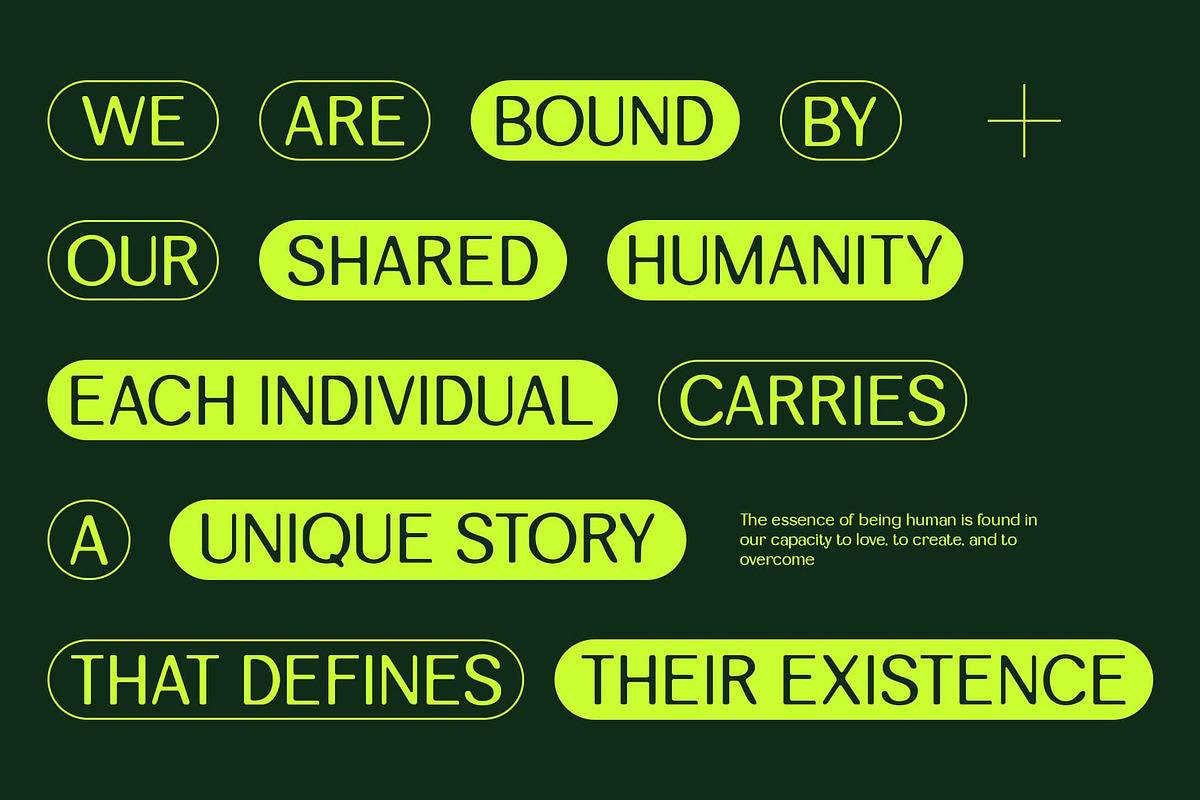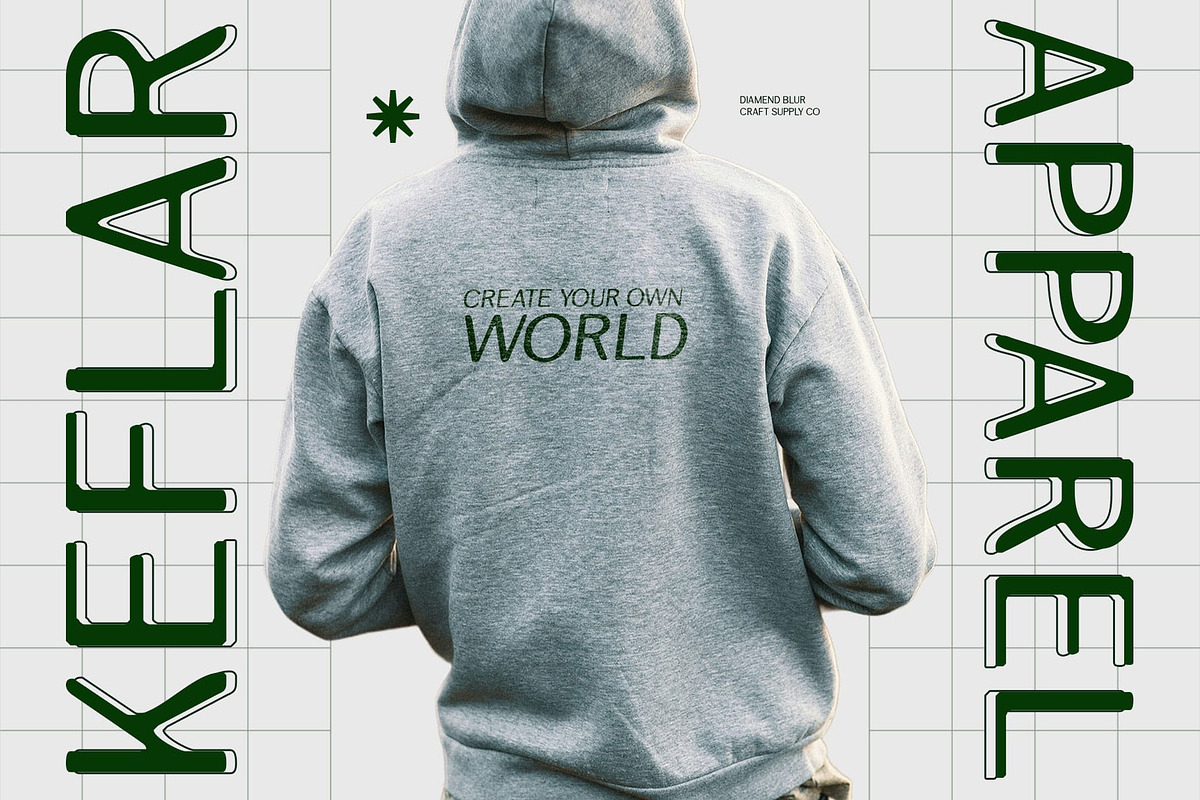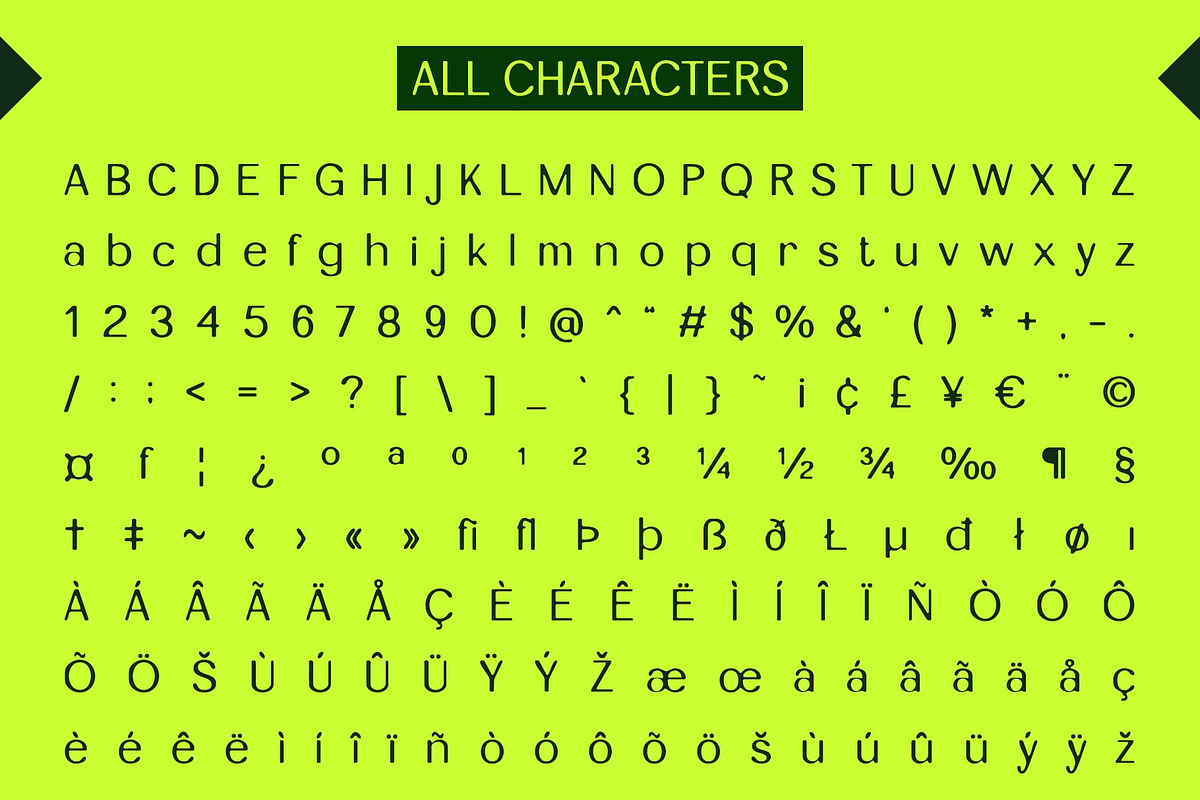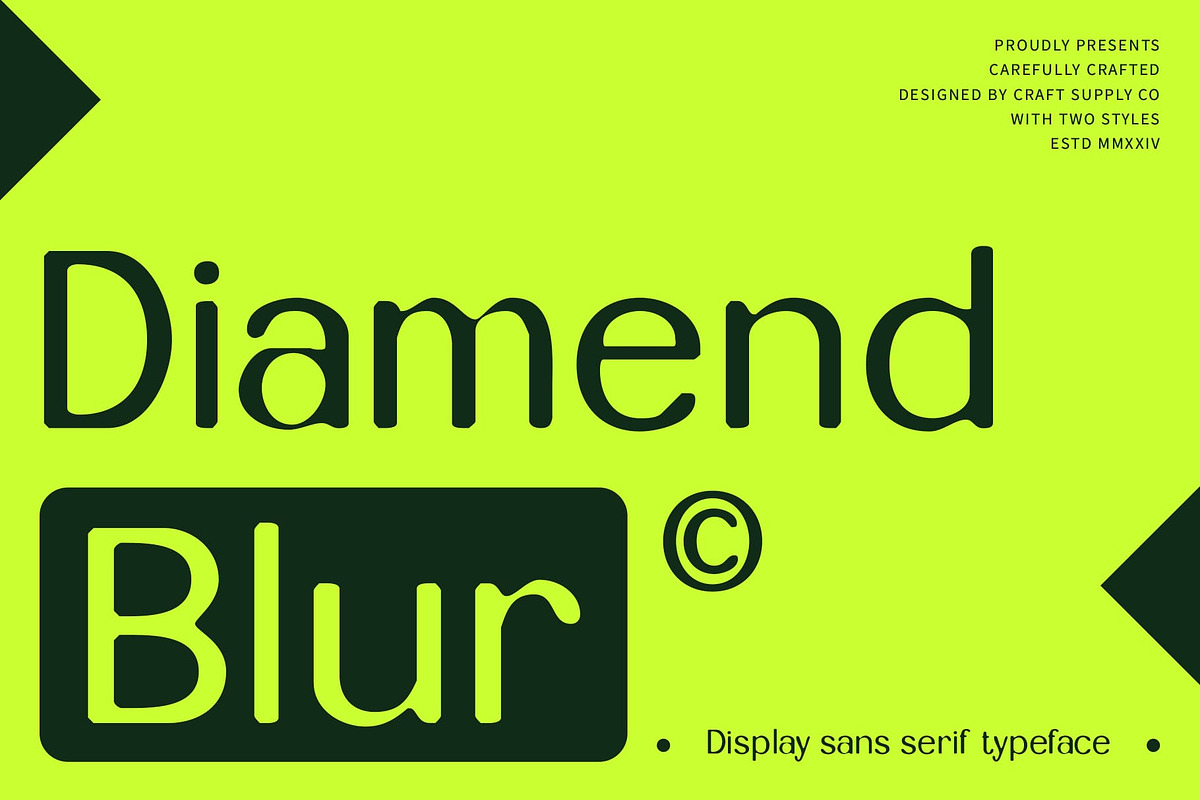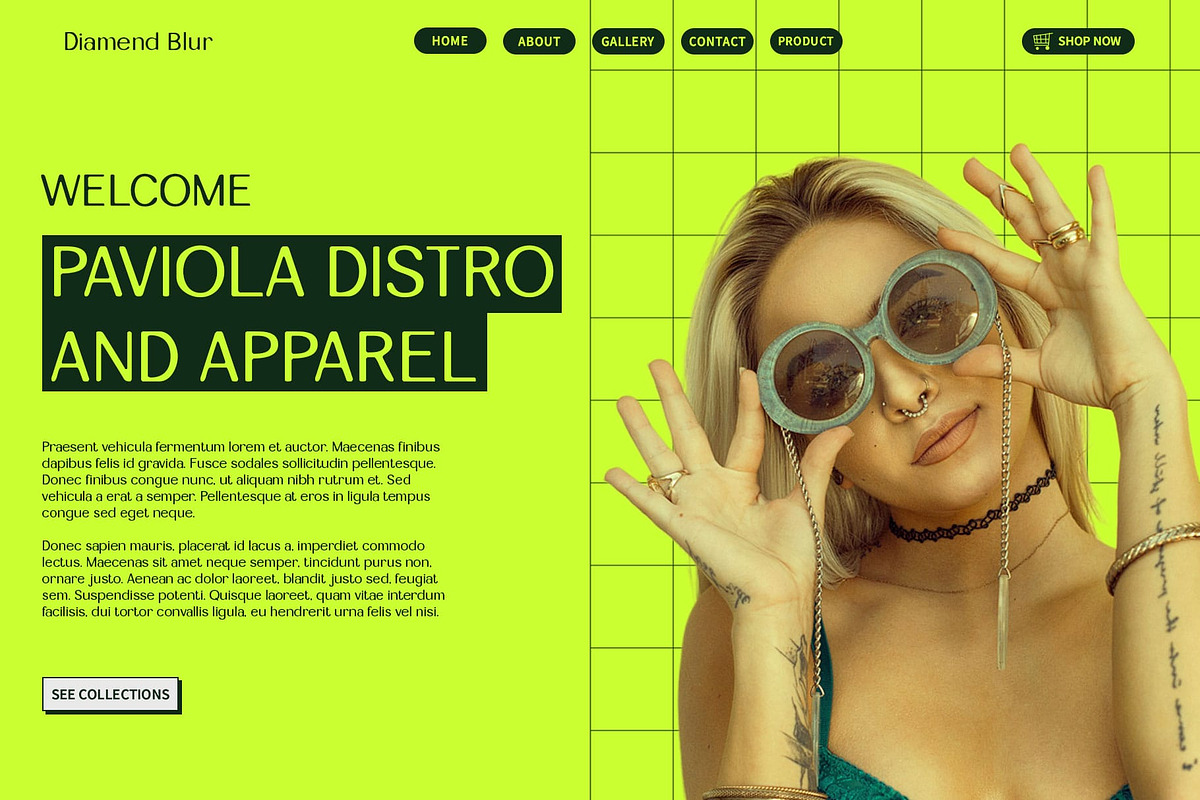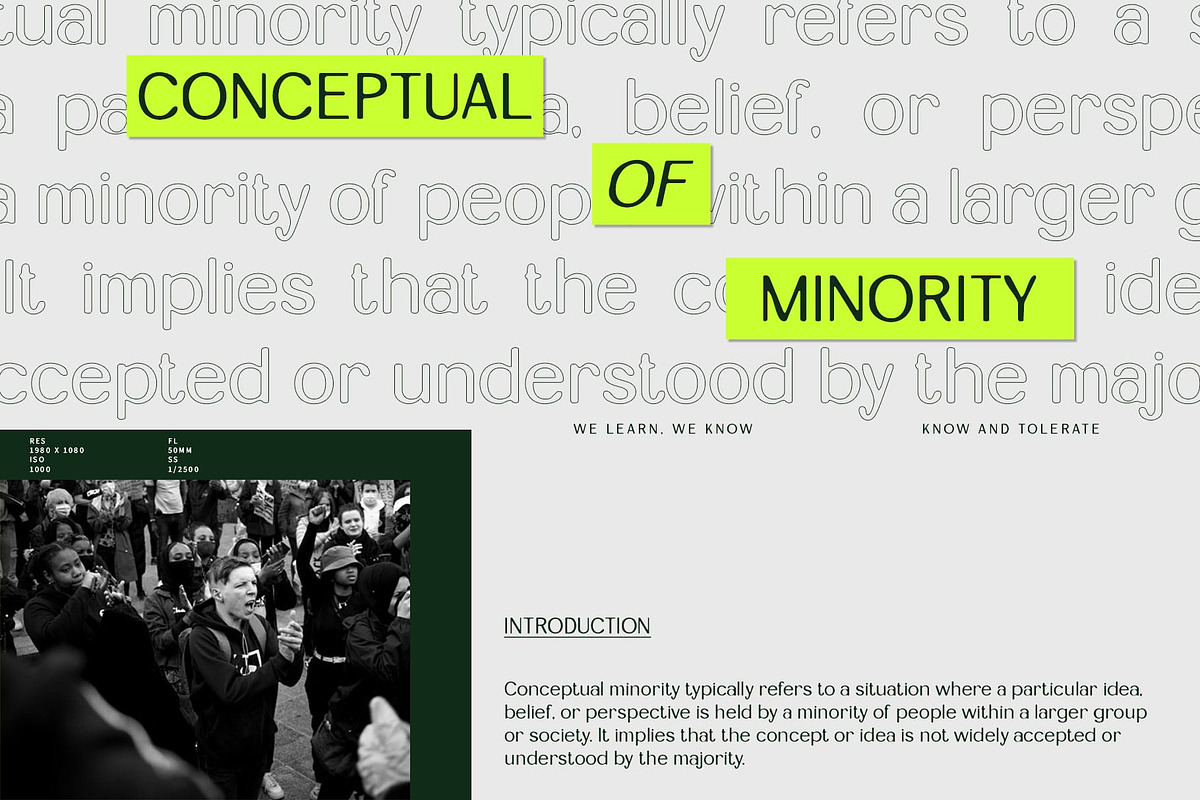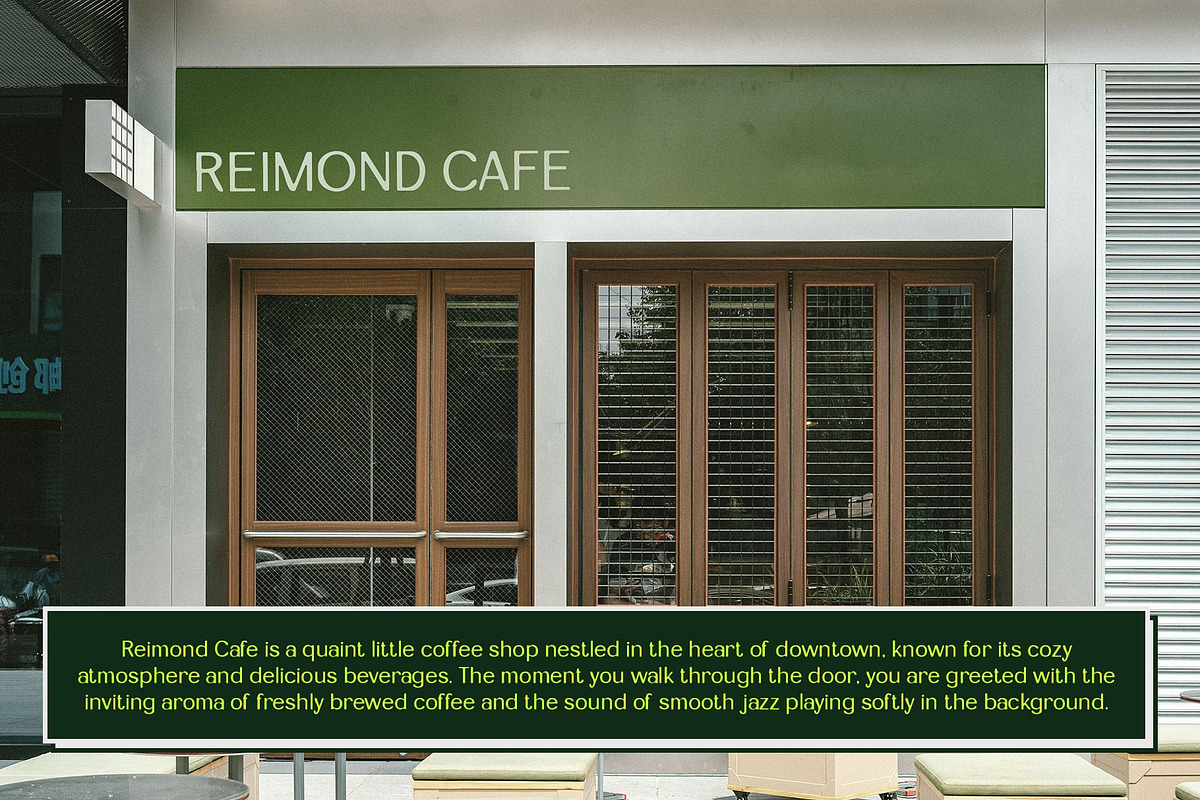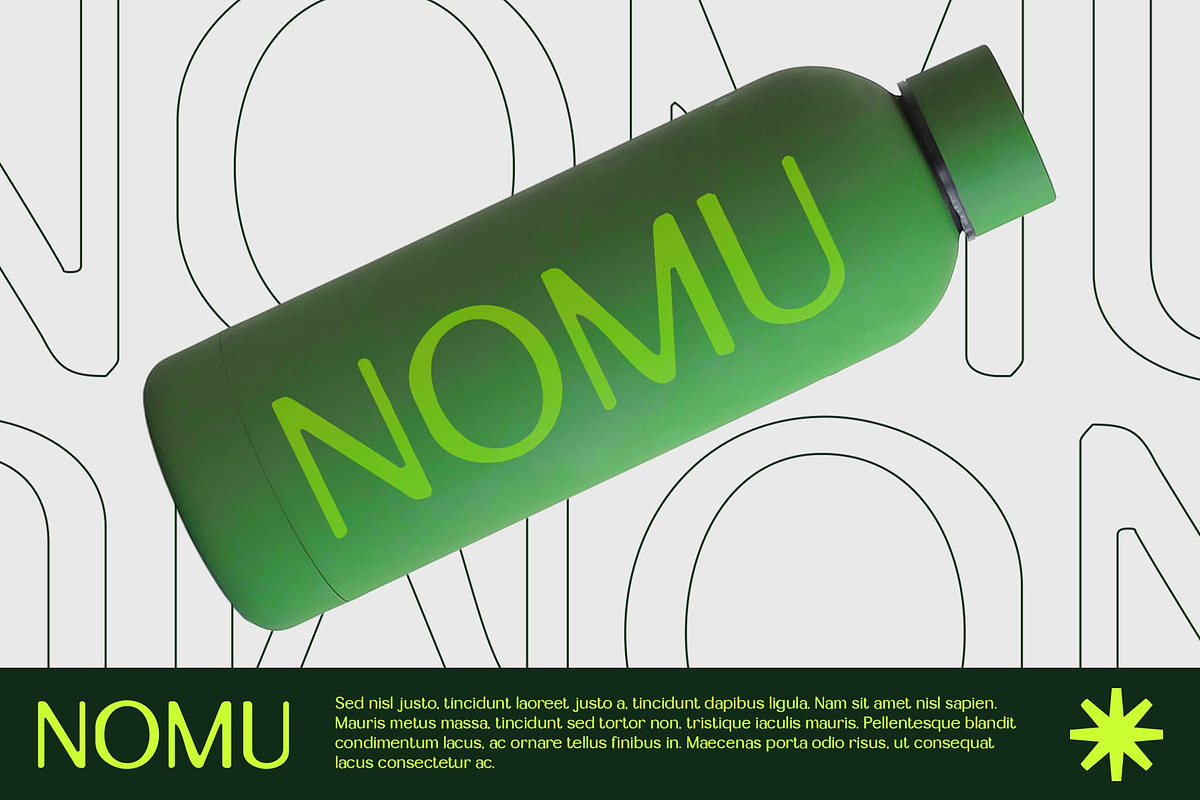
Diamend Blur
Diamend Blur: Modern Sans Serif Font with Blur Effect
Elegant Simplicity with Artistic Depth
Diamend Blur is a modern sans serif font that combines elegant simplicity with a unique artistic touch through its blur effect. Ideal for projects that prioritize clean design while introducing visual depth and complexity, this font offers a sophisticated and captivating look.
Elegant and Distinctive
Perfect for projects that demand sophistication without sacrificing visual interest, Diamend Blur adds a layer of depth to logos, headlines, and editorial layouts. Its refined appearance and artistic touch make it suitable for various design applications where elegance and uniqueness are paramount
Versatile for Various Projects
Perfect for posters, packaging, and promotional materials, Diamend Blur excels in projects that require a balance of clean design and artistic flair. Its ability to introduce visual interest while maintaining readability makes it a versatile choice for enhancing visual communication in diverse design contexts.